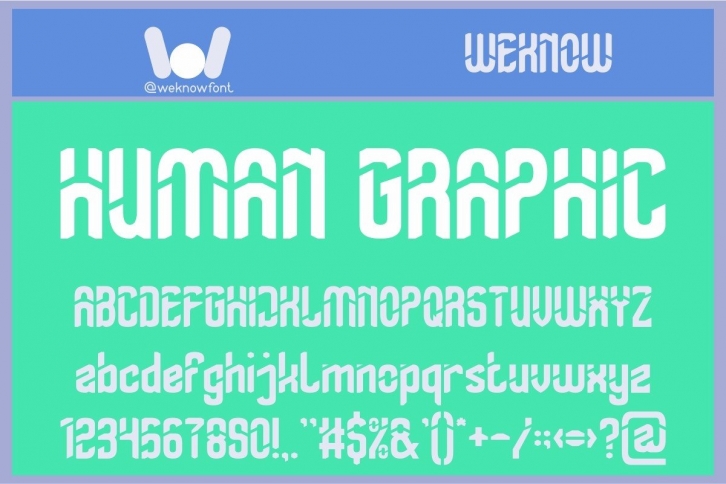
Human Graphic is a techno-SciFi-themed display font. This font is suitable for logos, logotypes, and headlines in corporate identity, brand identity, the apparel industry, posters, music, movies, games, magazines, books, comics, cartoons, YouTube, Instagram, websites, or any of your creative design projects.